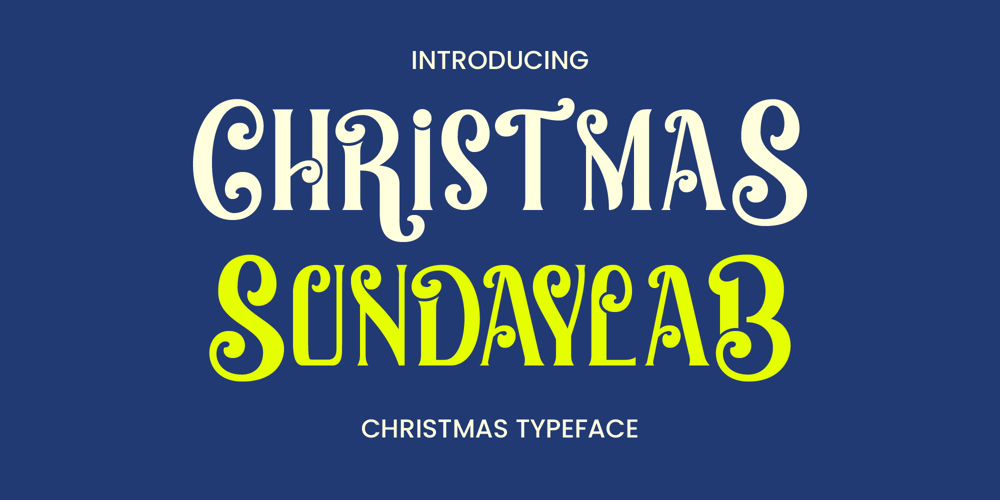
Christmas Sundaylab Font Family was designed by Dida Ahluddin and published by ahweproject. Christmas Sundaylab contains 1 styles and family package options. Christmas Sundaylab is a festive and very classy display font. It’s ideal for any of your winter vacation creations, so add it to your designs and bring them to life!Christmas Sundaylab is perfect for branding projects, logo, wedding designs, social media posts, advertisements, product packaging, product designs, label, photography, watermark, invitation, stationery and any projects that need handwriting taste.